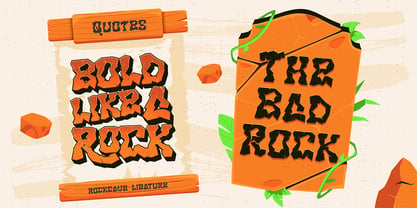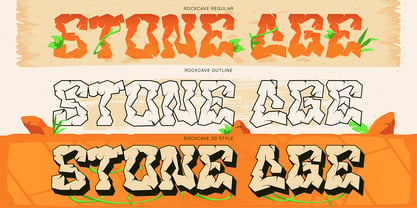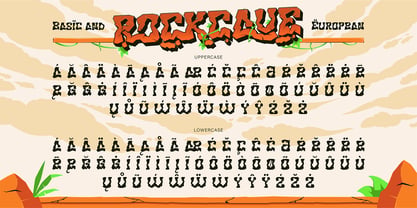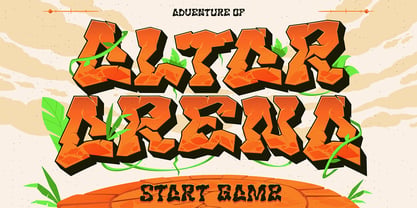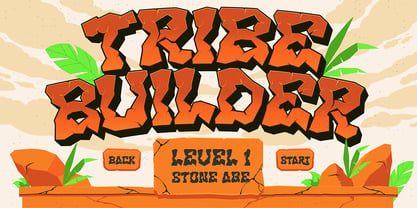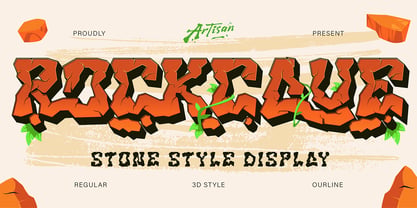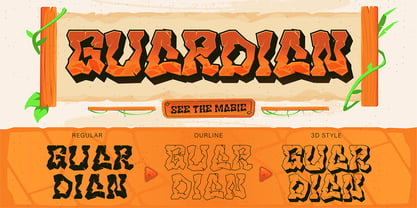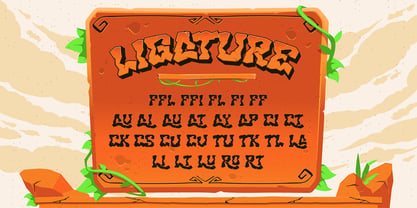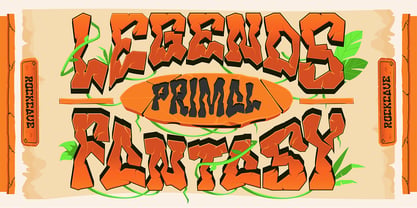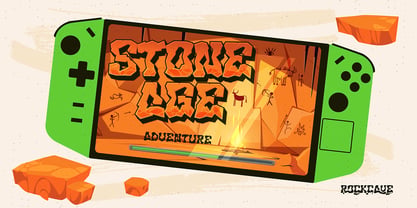
Rockcave
by Artisan Themes
The Rockcave Font Family was designed by Meidy Meichico and published by Artisan Themes. Rockcave contains 3 styles and family package options. More about this family
Meet Rockcave, a bold and adventurous display font inspired by the rugged beauty of stone and cave art. It’s the perfect font when you want your design to look strong, primal, and full of character. Whether you're working on a game title, adventure poster, YouTube thumbnail, or prehistoric theme project, Rockcave instantly gives that “stone age” vibe — raw, powerful, yet totally fun. This font comes in Regular, Outline, and 3D Style, so you can mix them up for extra impact. Each letter feels like it’s been hand-carved from rock, perfect for projects that need a bold and adventurous look. So if your design is missing that wild, ancient, and epic touch — Rockcave is ready to make it rock (literally).
Designers: Meidy Meichico
Foundry: Artisan Themes